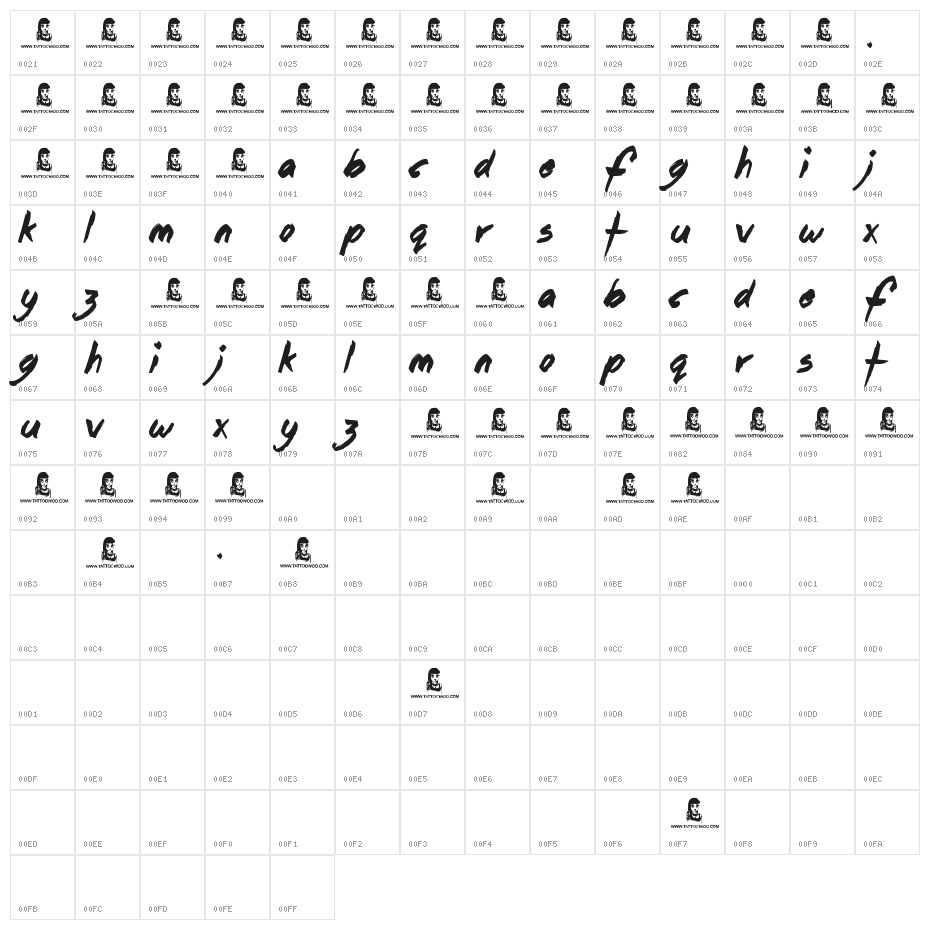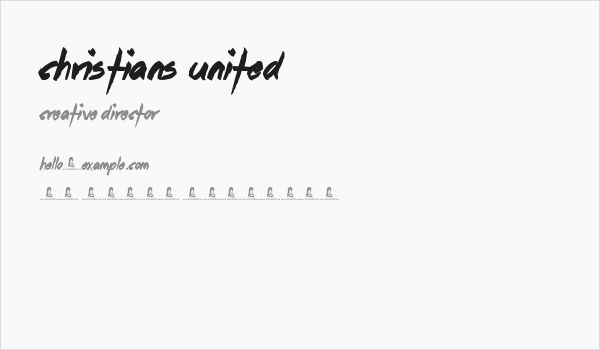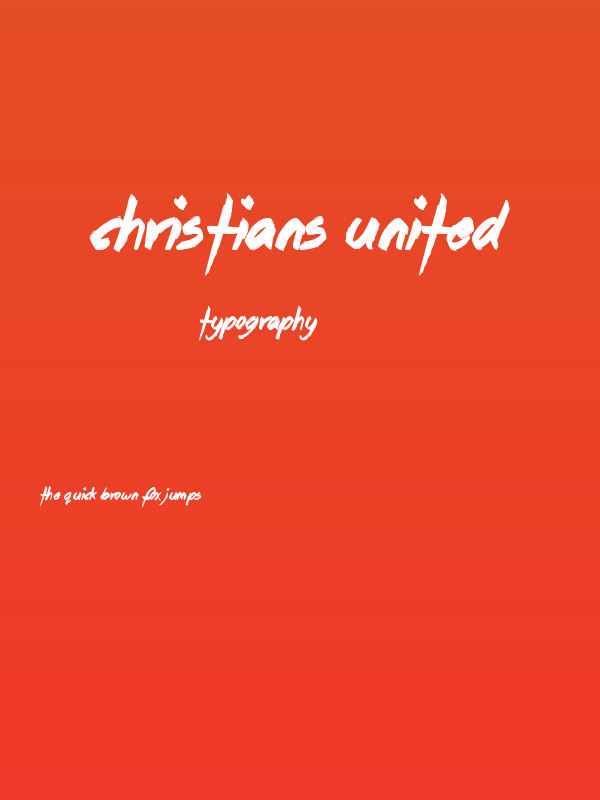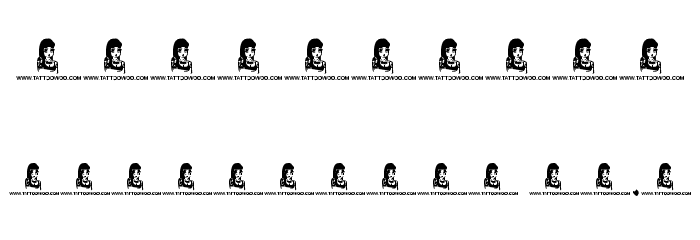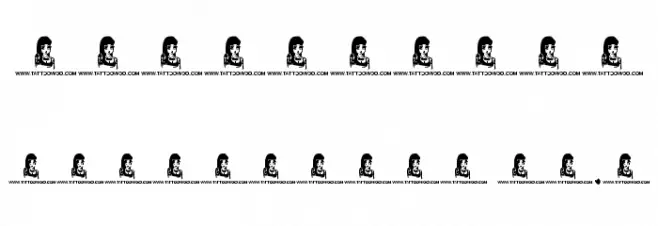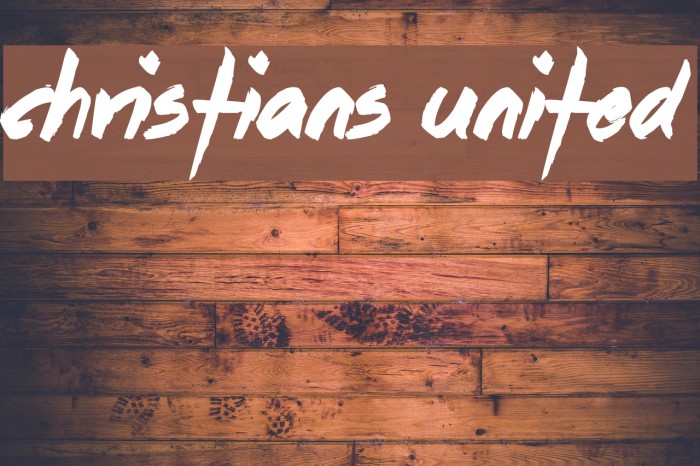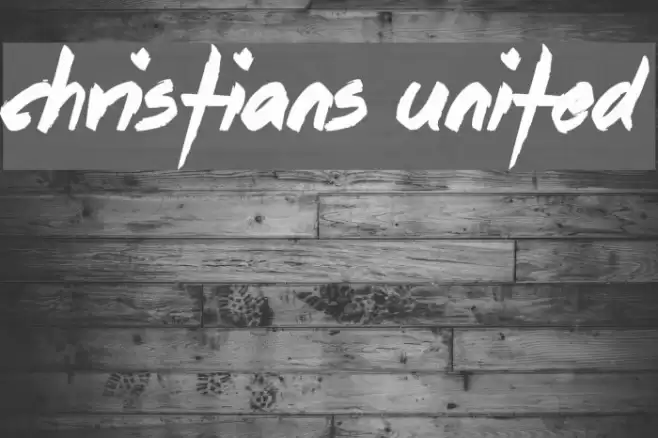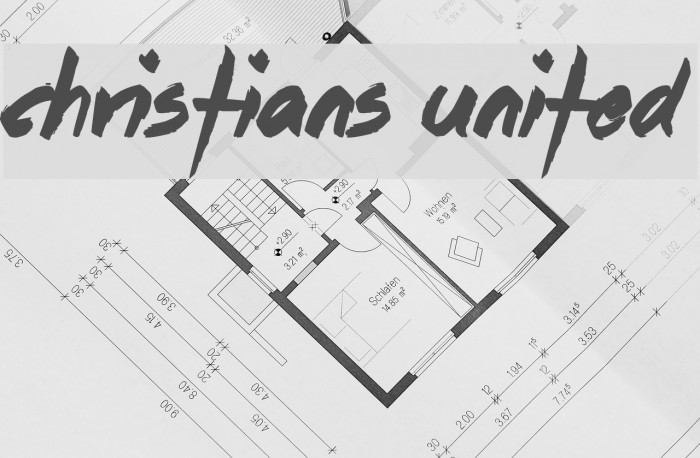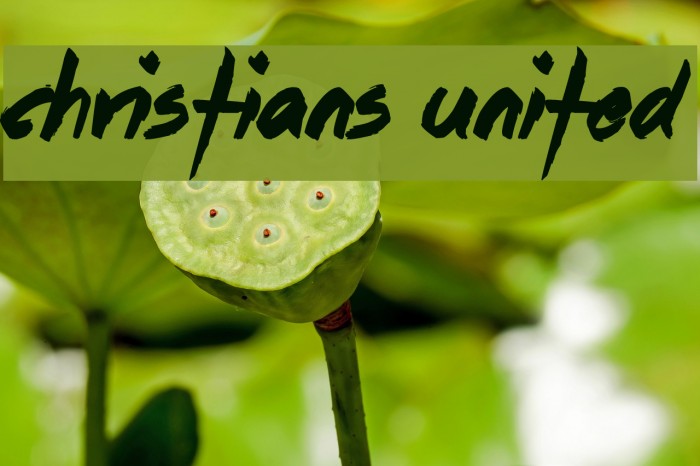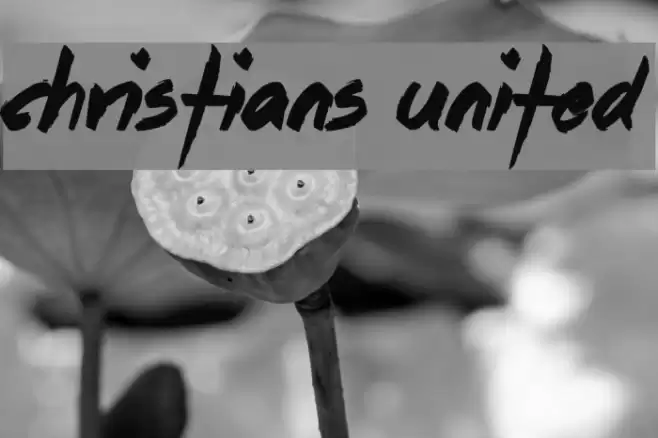
Christians United Font
Christians United Description
This font features a bold, expressive style with a handwritten appearance, characterized by thick, dynamic strokes that convey a sense of energy and movement. The letters are slightly slanted, adding to the casual and informal feel. The strokes vary in thickness, providing a medium contrast that enhances readability while maintaining a unique artistic flair. The overall design is reminiscent of brush calligraphy, making it suitable for projects that require a personal touch or a creative, artistic vibe.
| Use Case | Logos, Headlines, Posters |
| Proposed Projects | Ideal for creative projects such as posters, album covers, branding, and artistic invitations. |